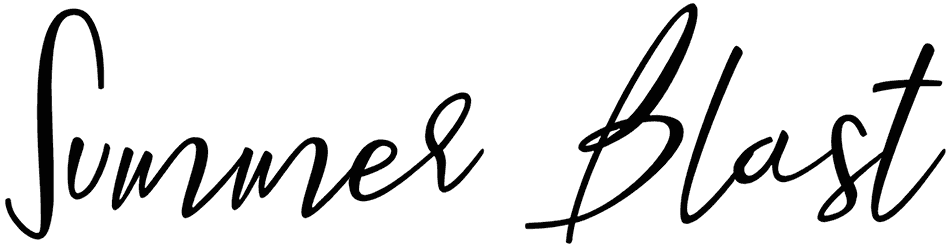
Summer Blast Font
Boost the fun vibe of your design with Summer Blast as a calligraphy font. With an urban and picturesque face, this summer font will make your project catchy. Summer Blast is a good deal of design for a lot of modern texts, such as party invitations, business cards, social media posts, and many others like.